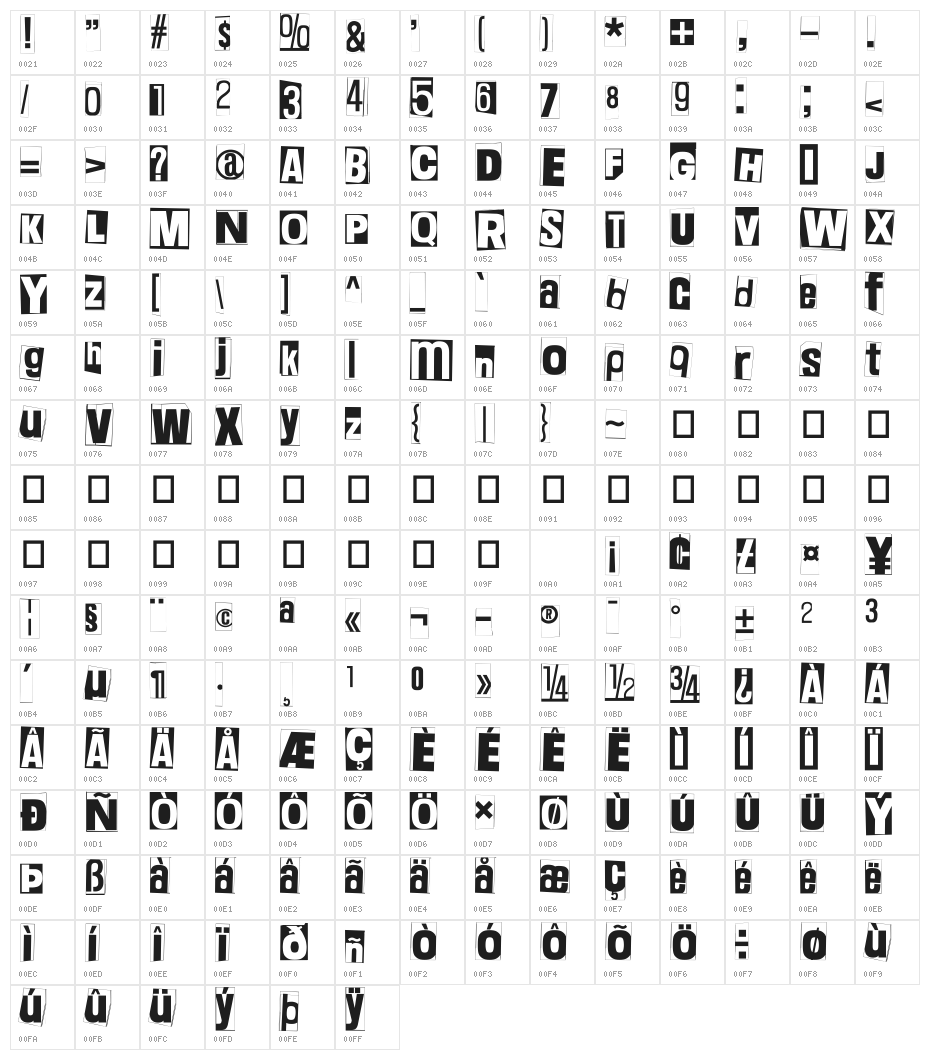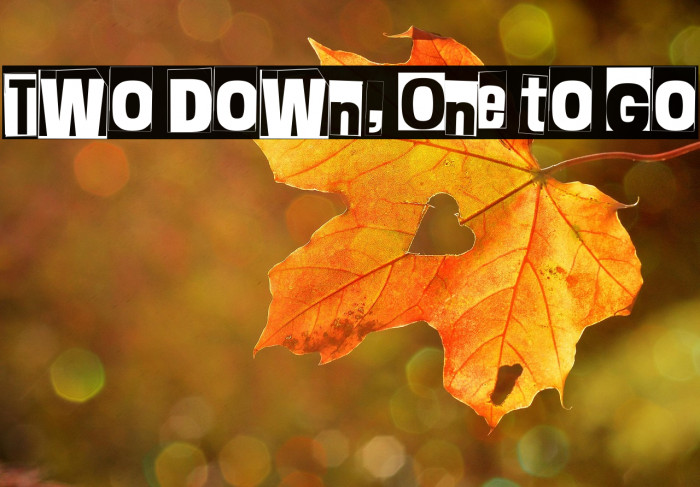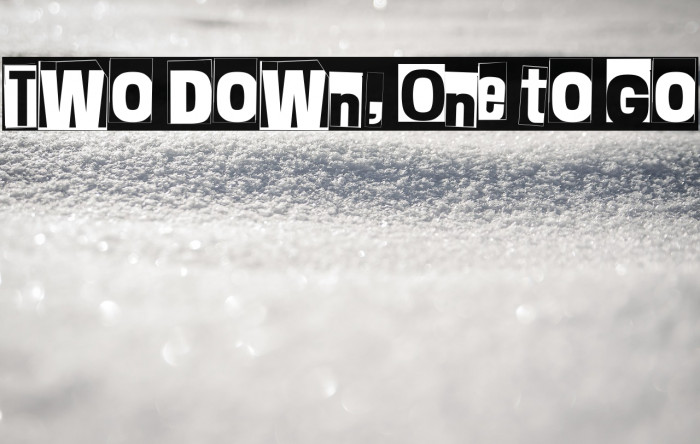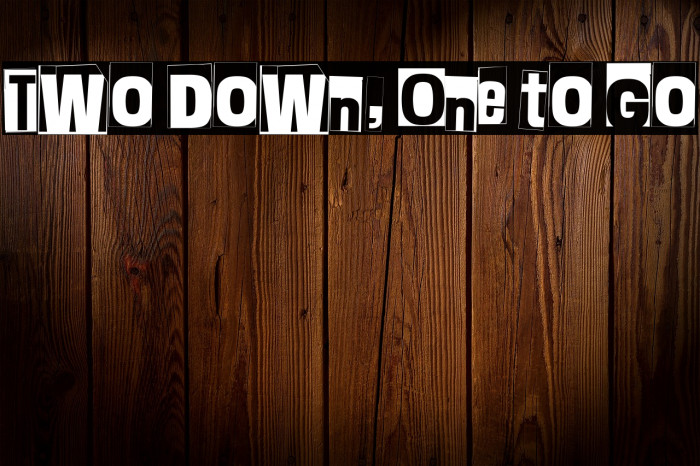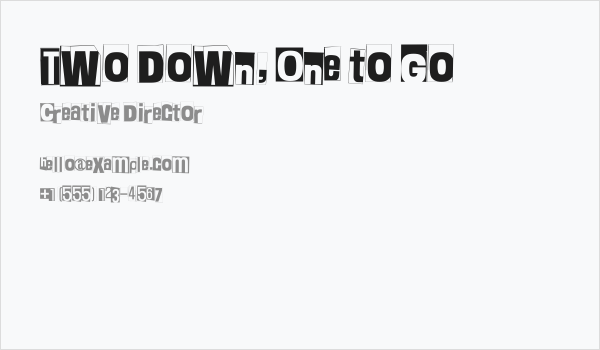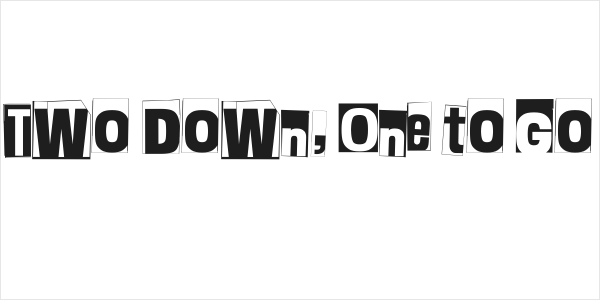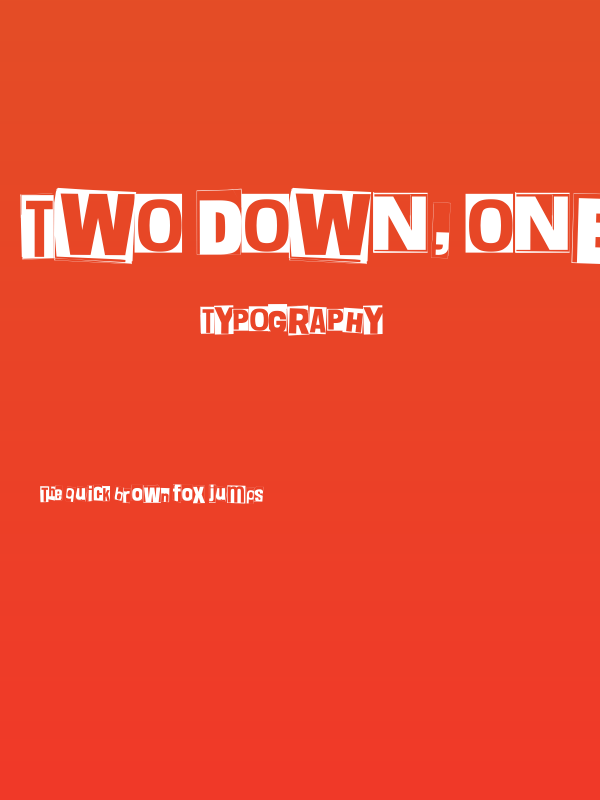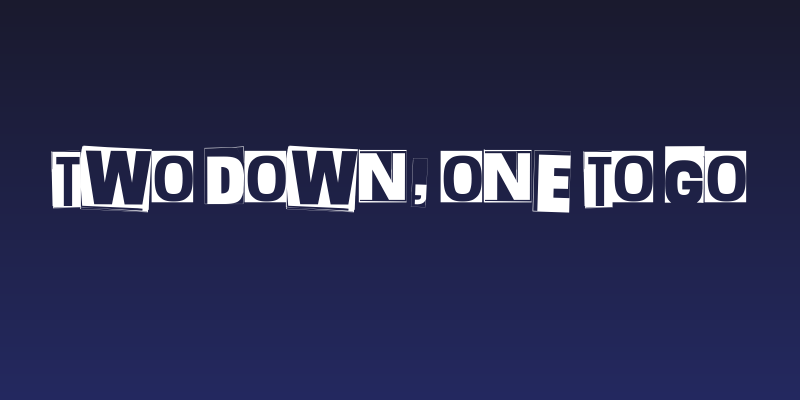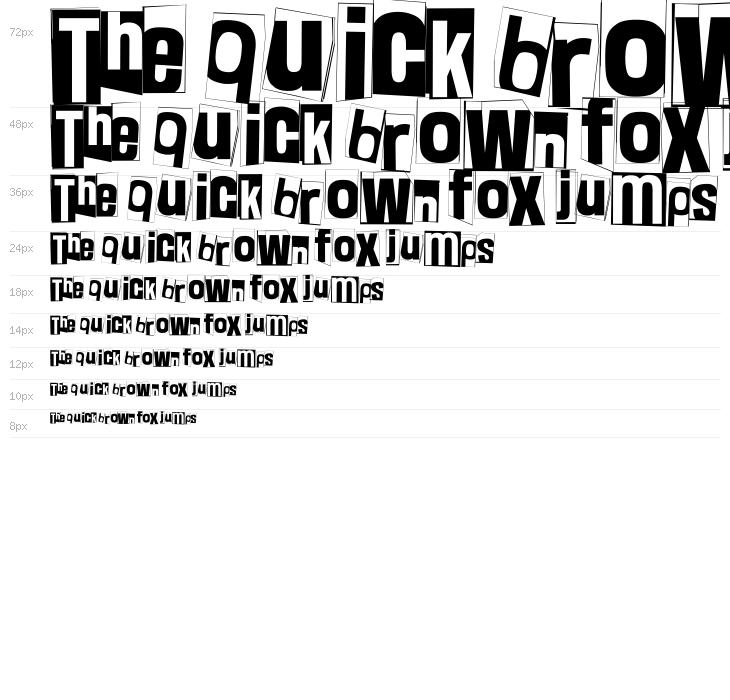
Two Down, One to Go Font
Two Down, One to Go Description
A bold, decorative font with a cut-out, collage style, featuring high contrast between black and white elements.
| Proposed Projects | Posters, album covers, creative projects. |